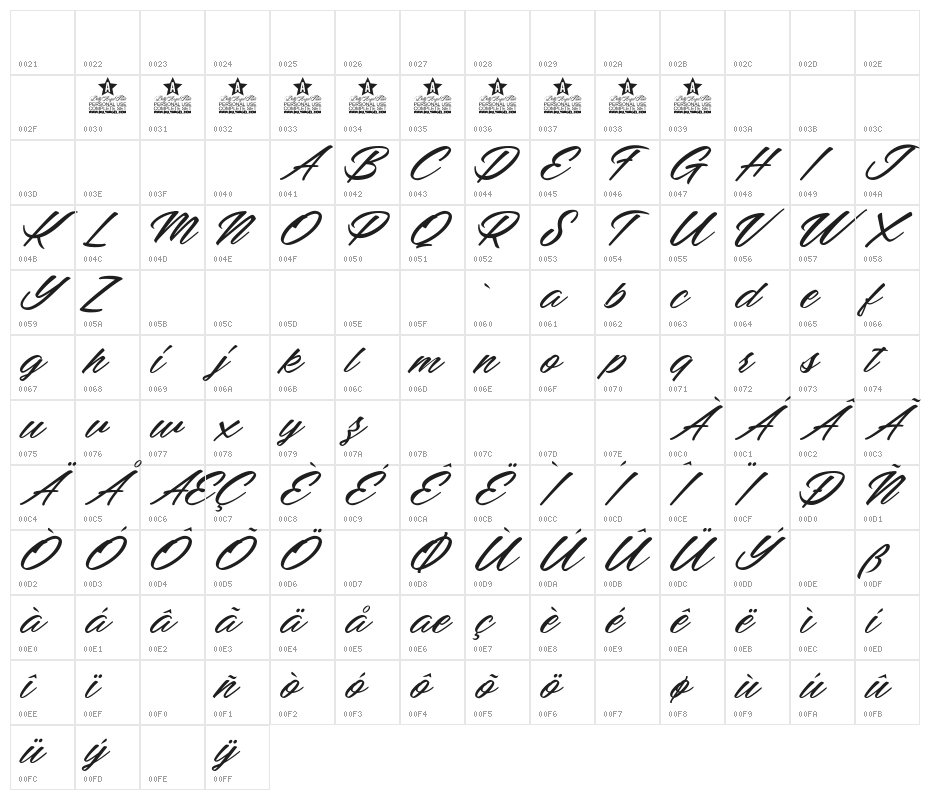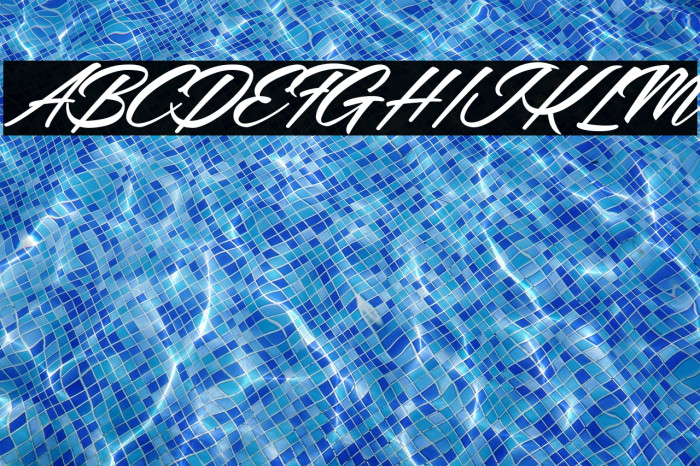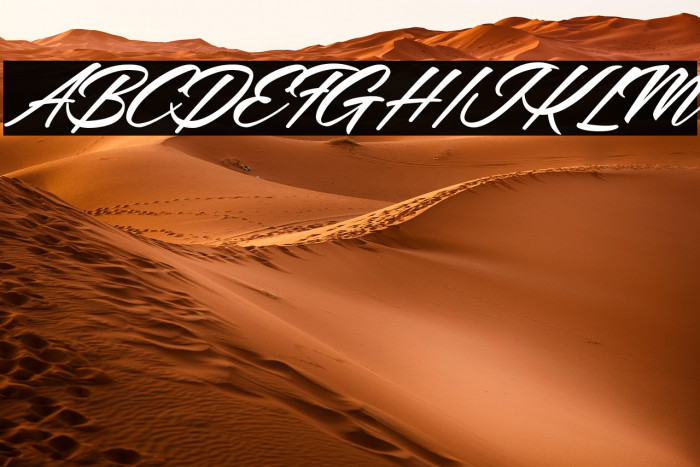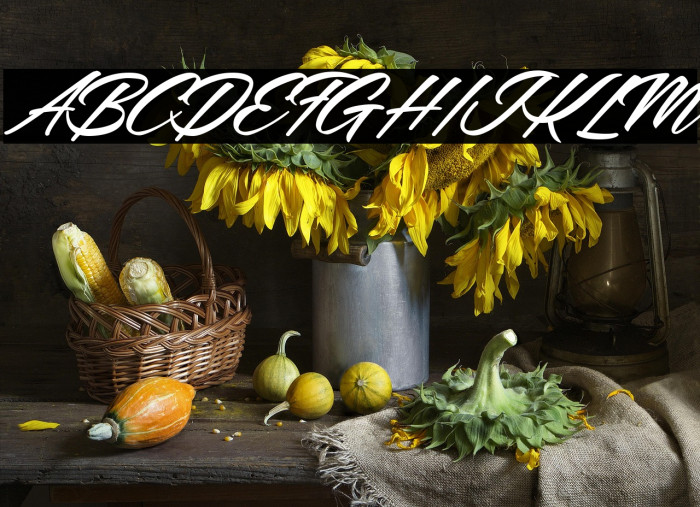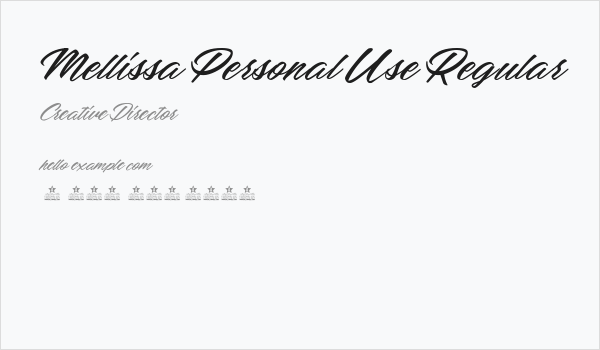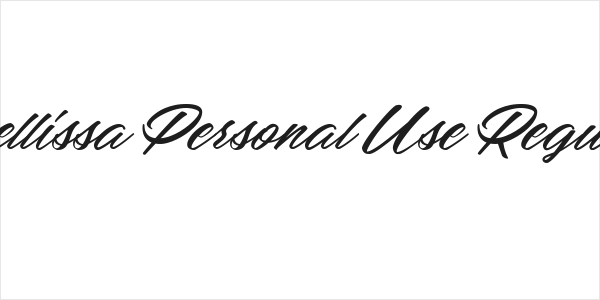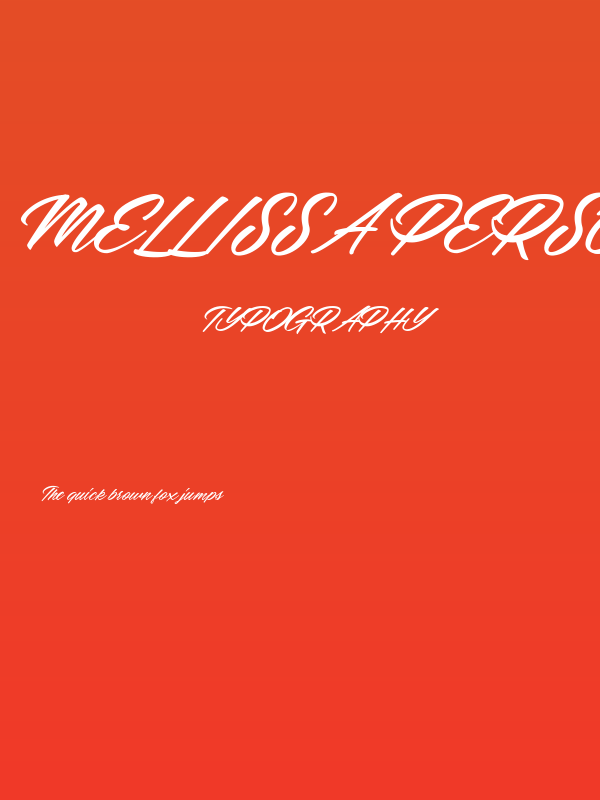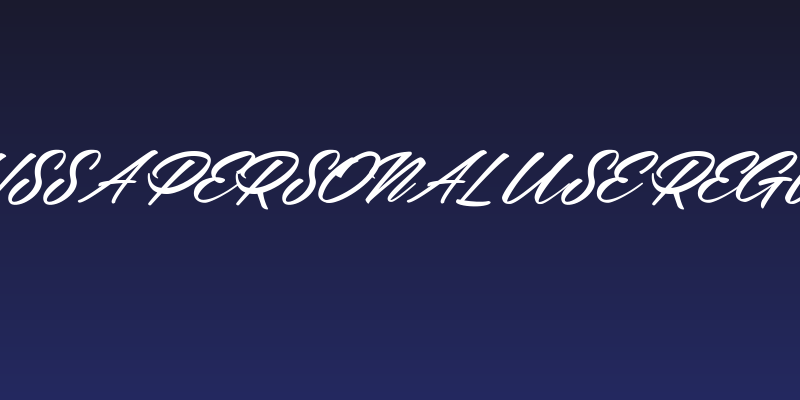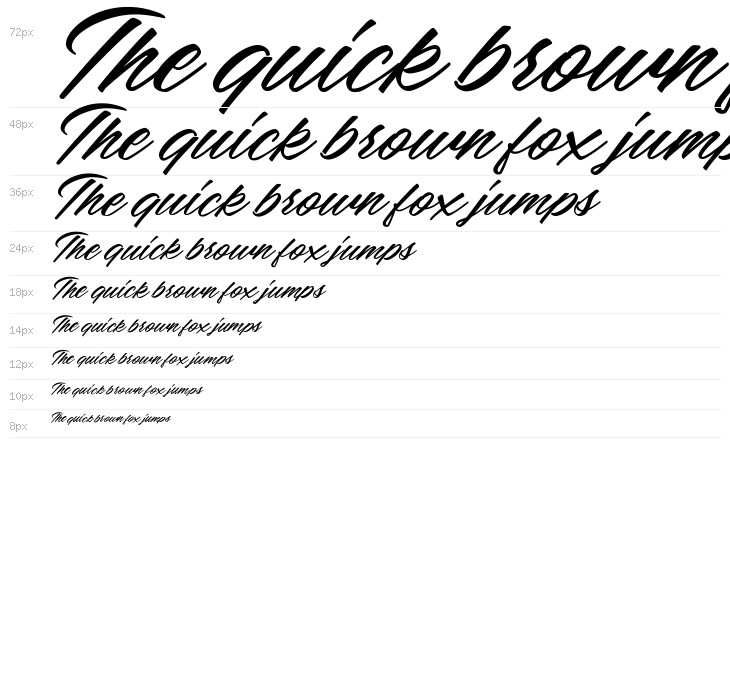
Mellissa Personal Use Regular Font
Mellissa Personal Use Regular Description
This font features a flowing, cursive style with elegant, sweeping lines that give it a sophisticated and artistic appearance. The uppercase letters are bold and dynamic, with a consistent slant that adds a sense of motion and grace. The lowercase letters maintain the same fluidity, with smooth connections between characters that enhance readability while preserving the decorative nature. The numbers and special characters are designed to match the overall aesthetic, ensuring a cohesive look across all text. This font is ideal for projects that require a personal touch, such as invitations, greeting cards, or branding materials that aim to convey elegance and creativity.
Use CaseLogos, Headlines, Invitations
Proposed ProjectsIdeal for invitations, greeting cards, branding materials, and any project requiring an elegant, personal touch.